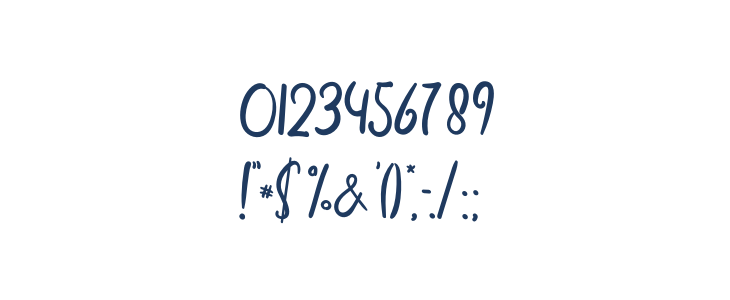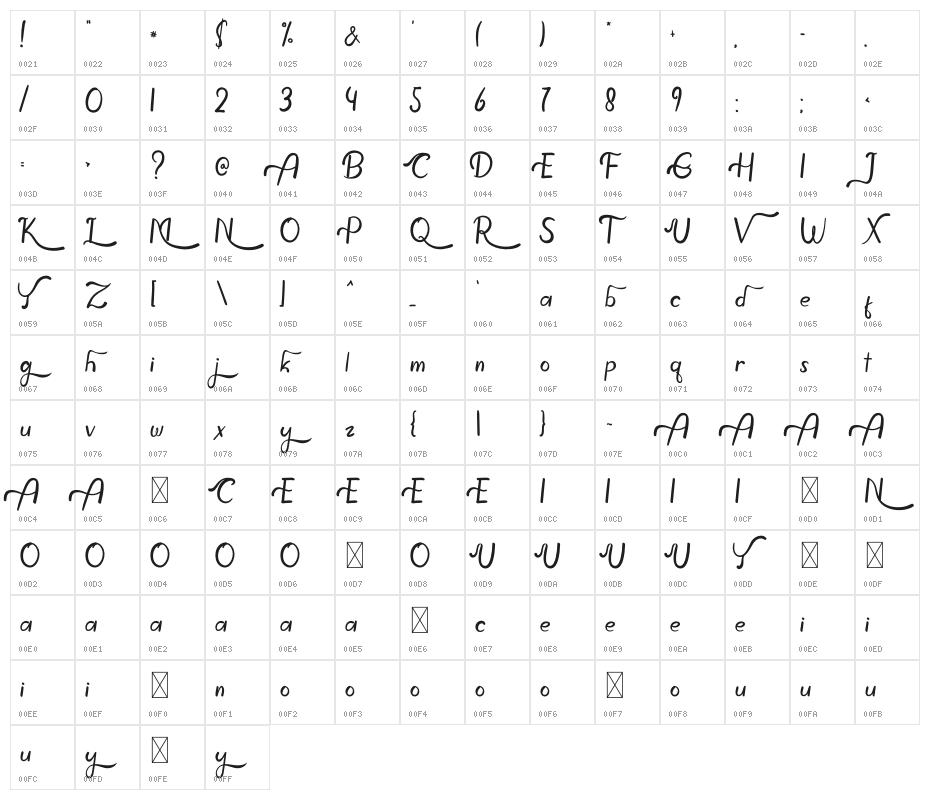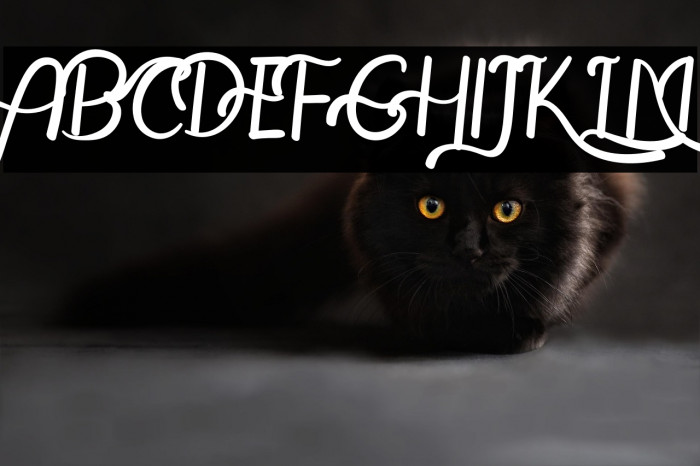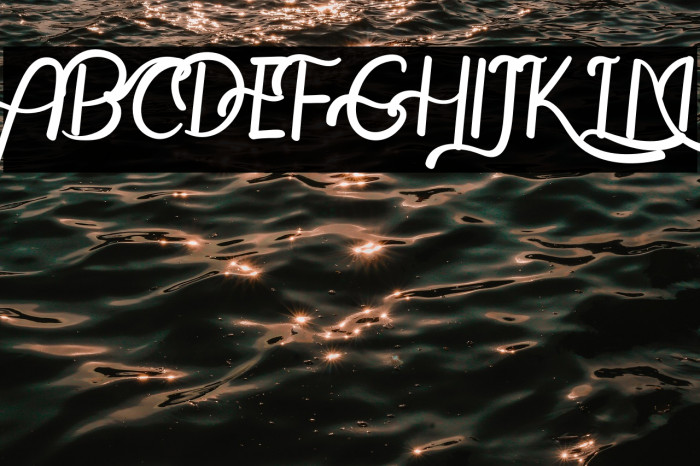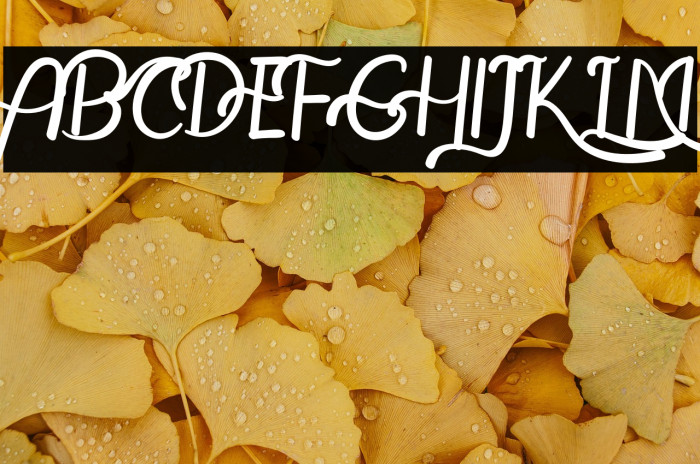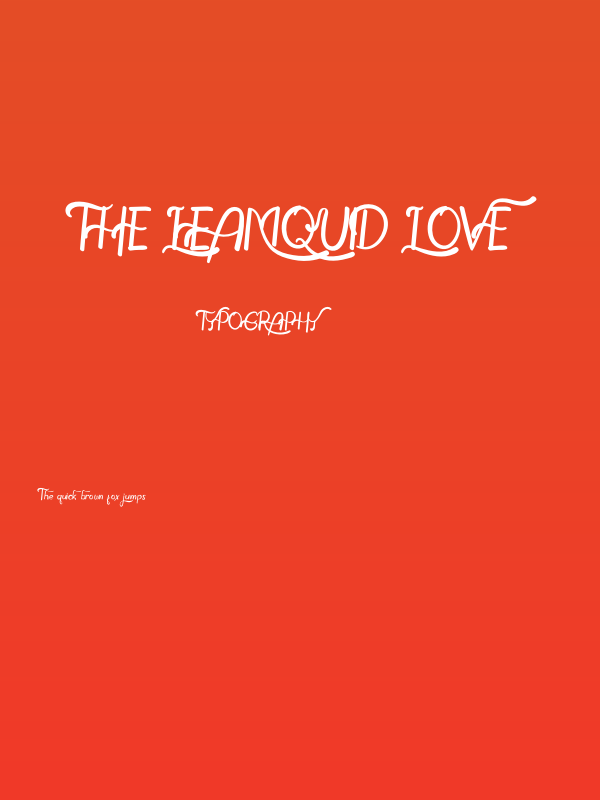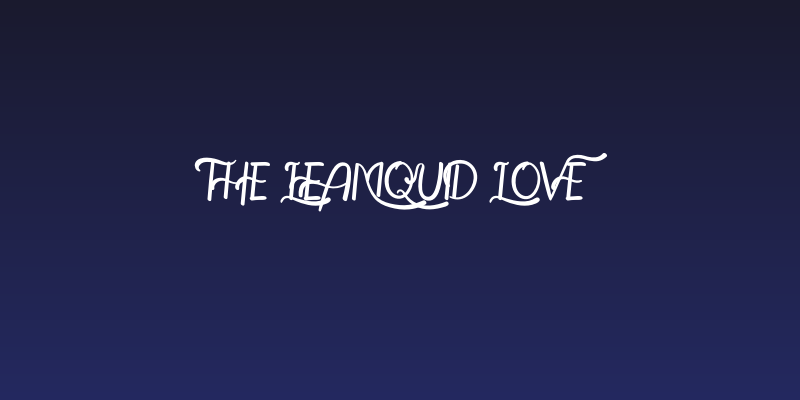
The Leamquid Love Font
The Leamquid Love Description
This font features a dynamic and flowing script style, characterized by its elegant curves and fluid strokes. The uppercase letters are bold and expressive, with unique flourishes that add a sense of movement and sophistication. The lowercase letters maintain a consistent style, offering a harmonious blend of traditional script elements with a modern twist. Numbers and special characters are designed to complement the overall aesthetic, ensuring versatility across various applications. The font's playful yet refined appearance makes it suitable for creative projects that require a touch of elegance and personality.